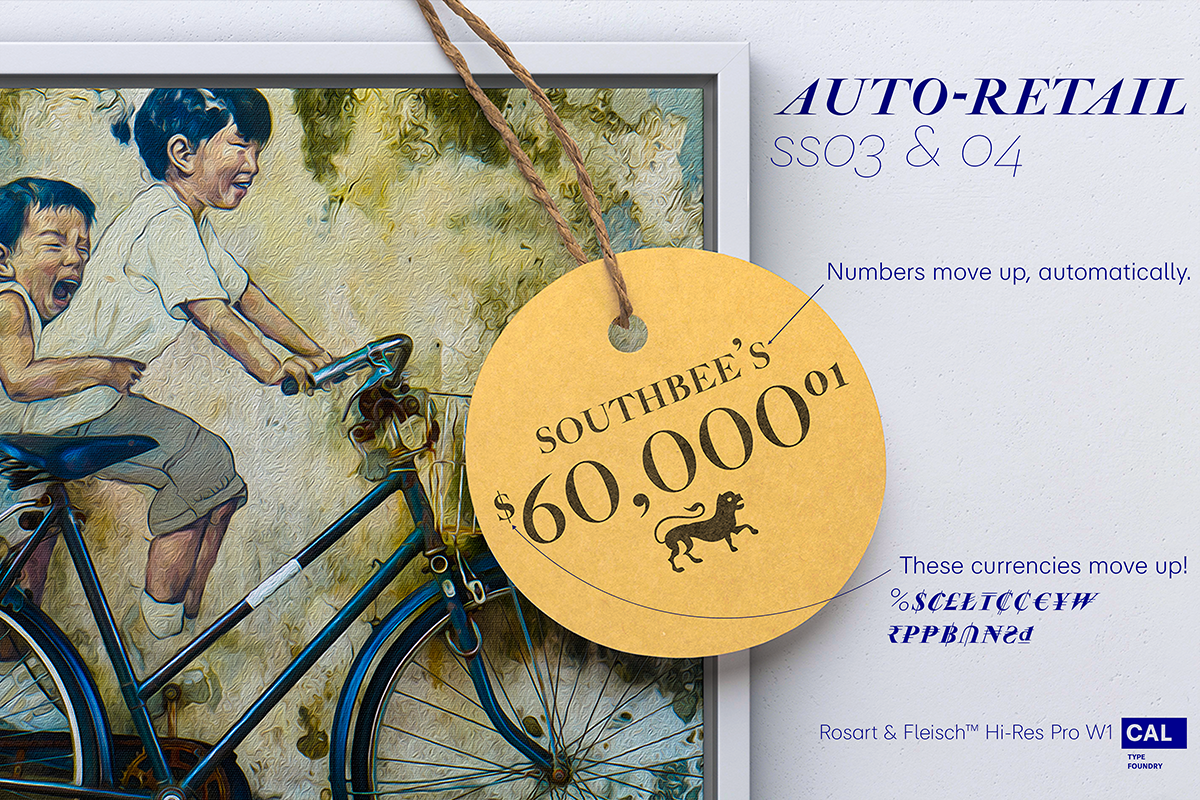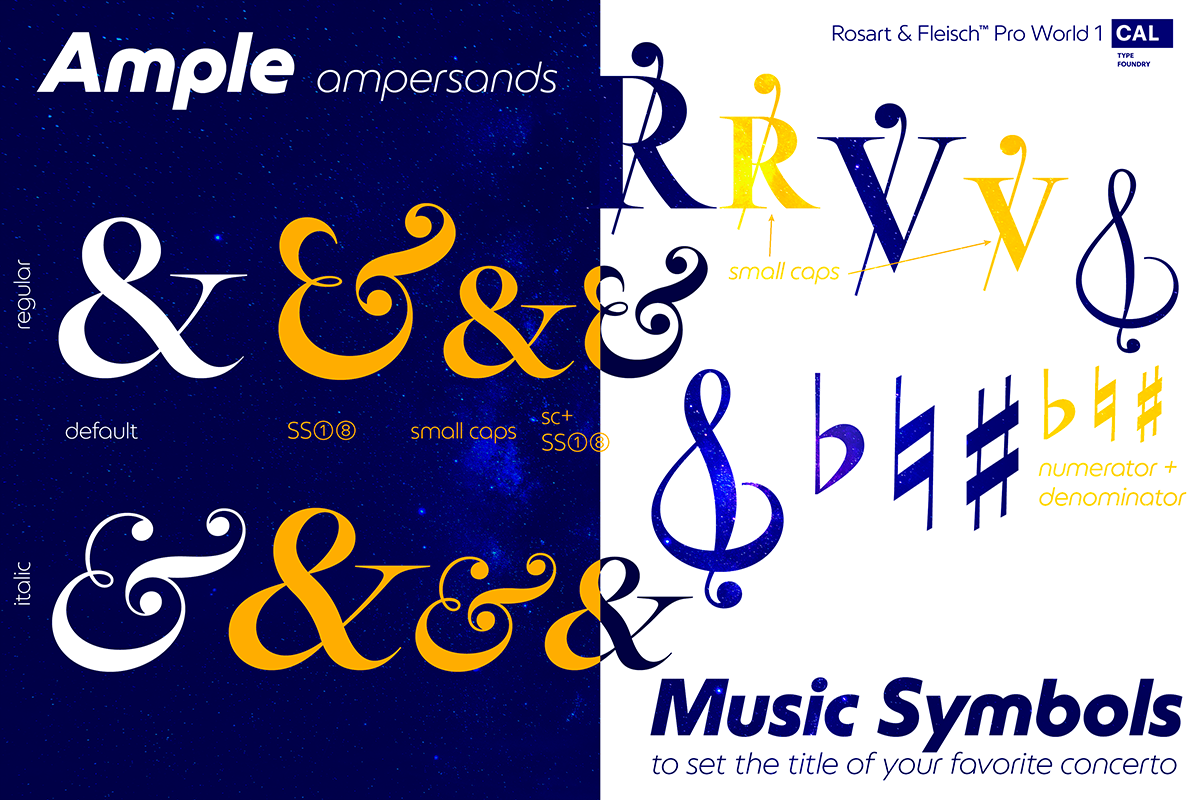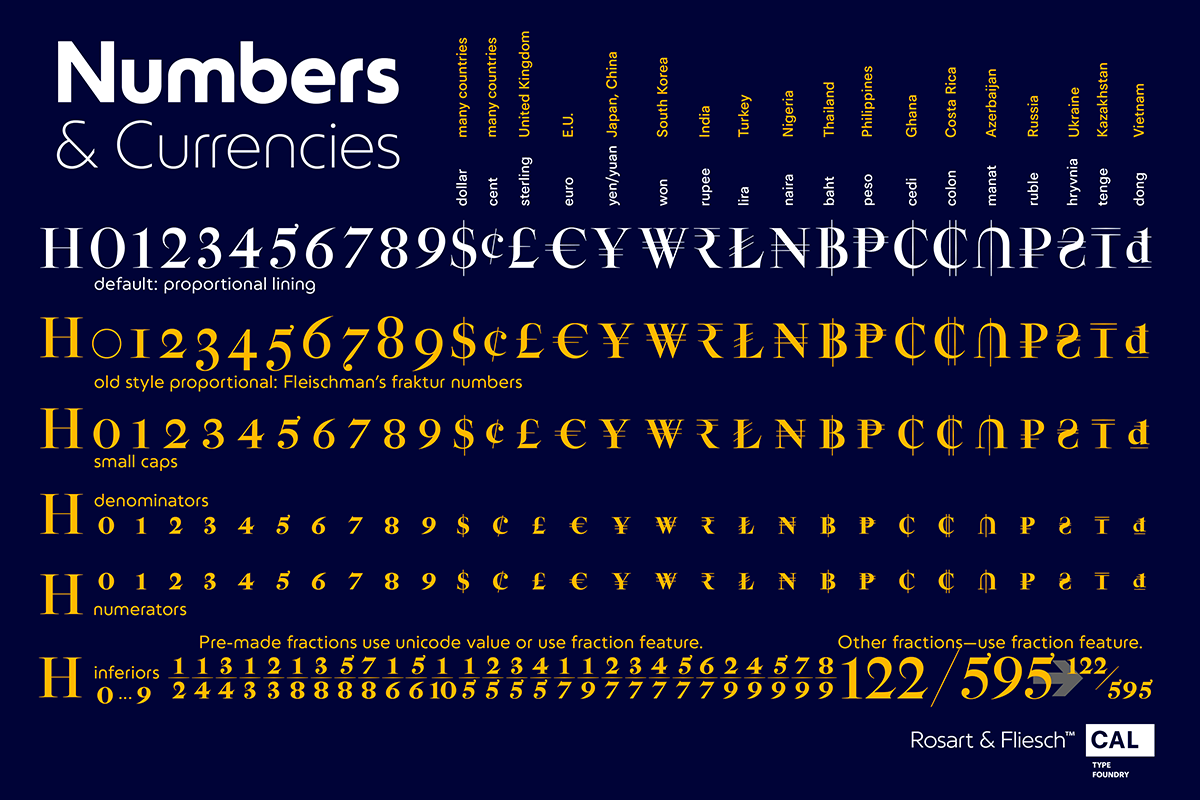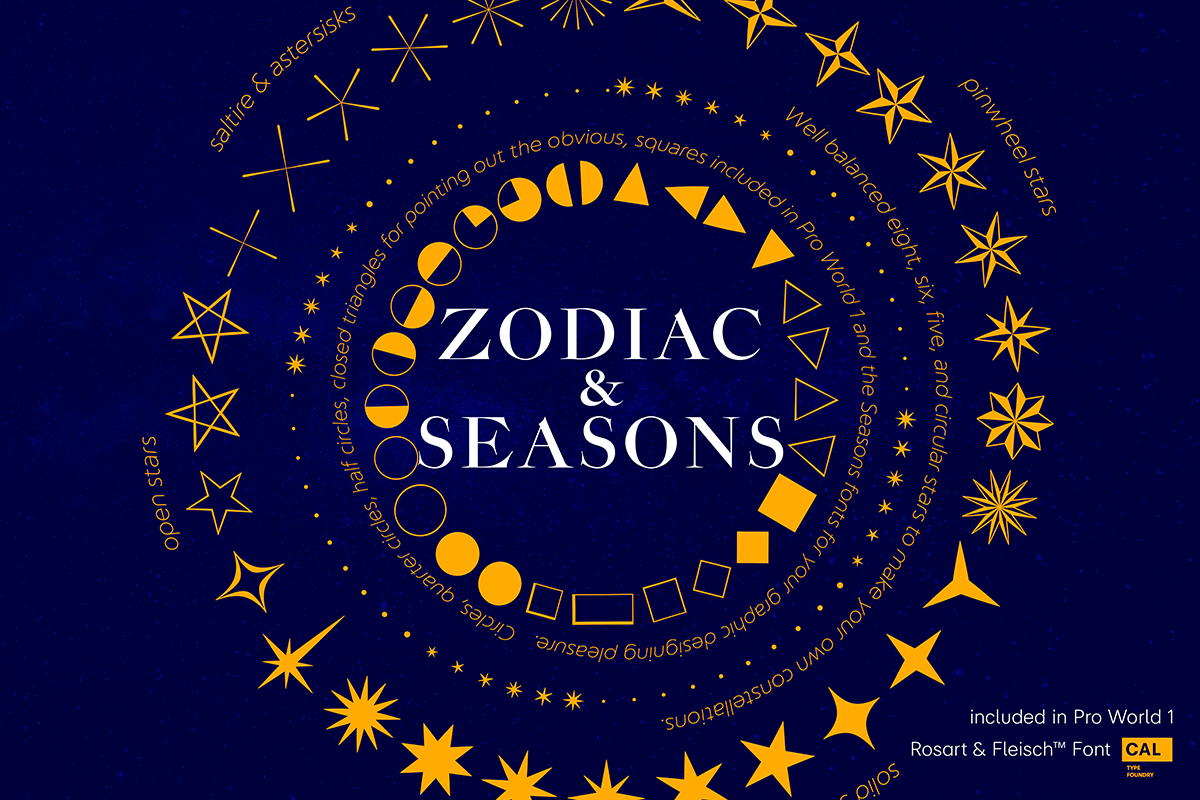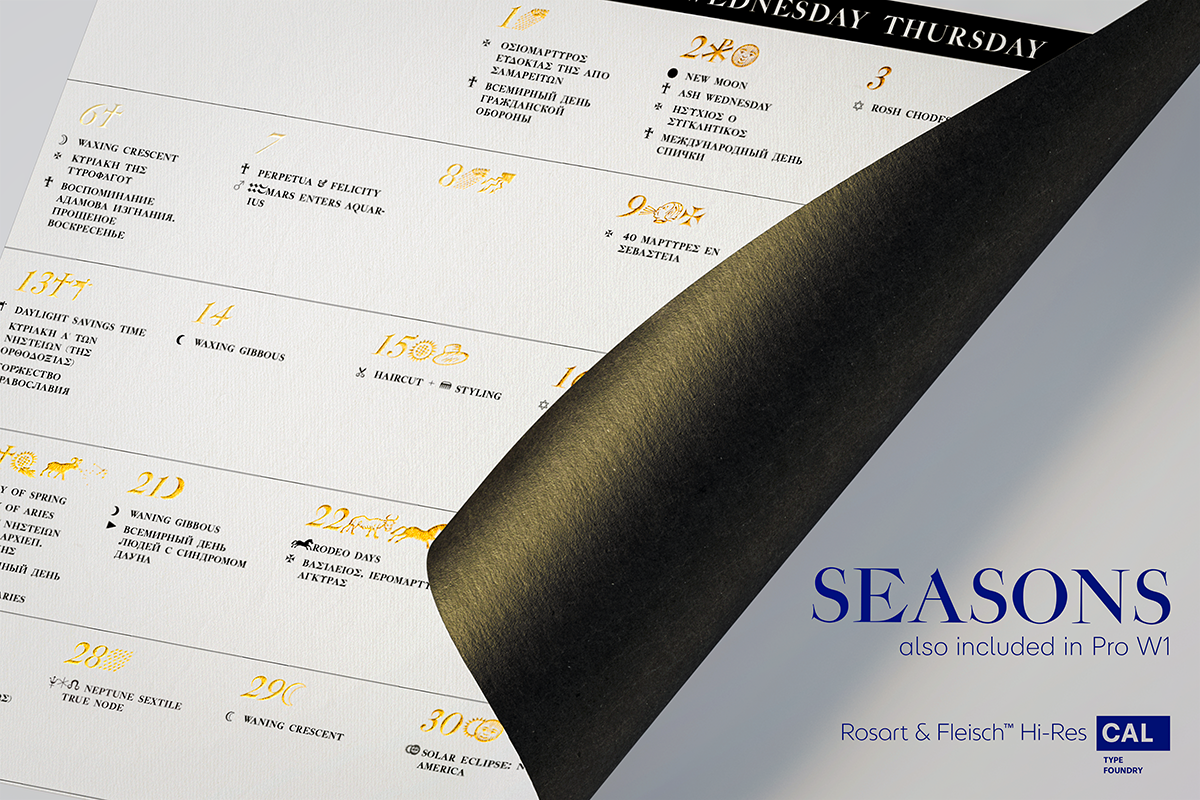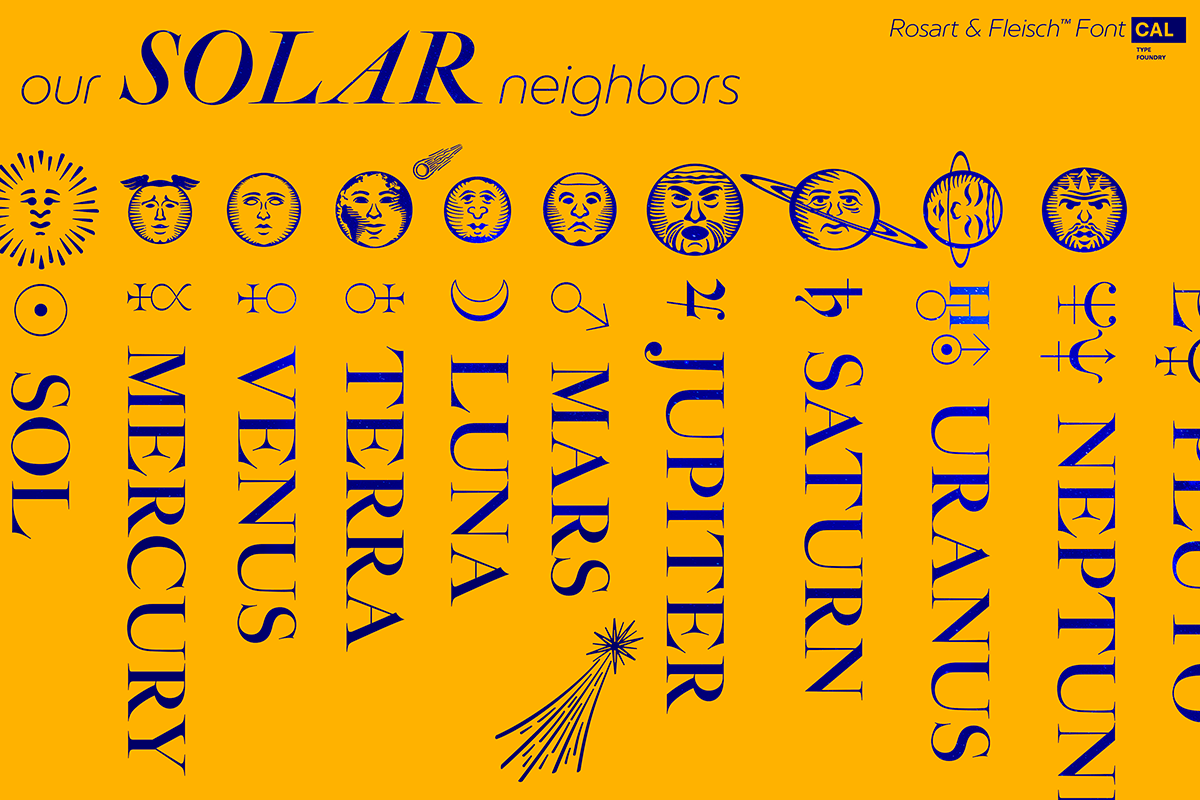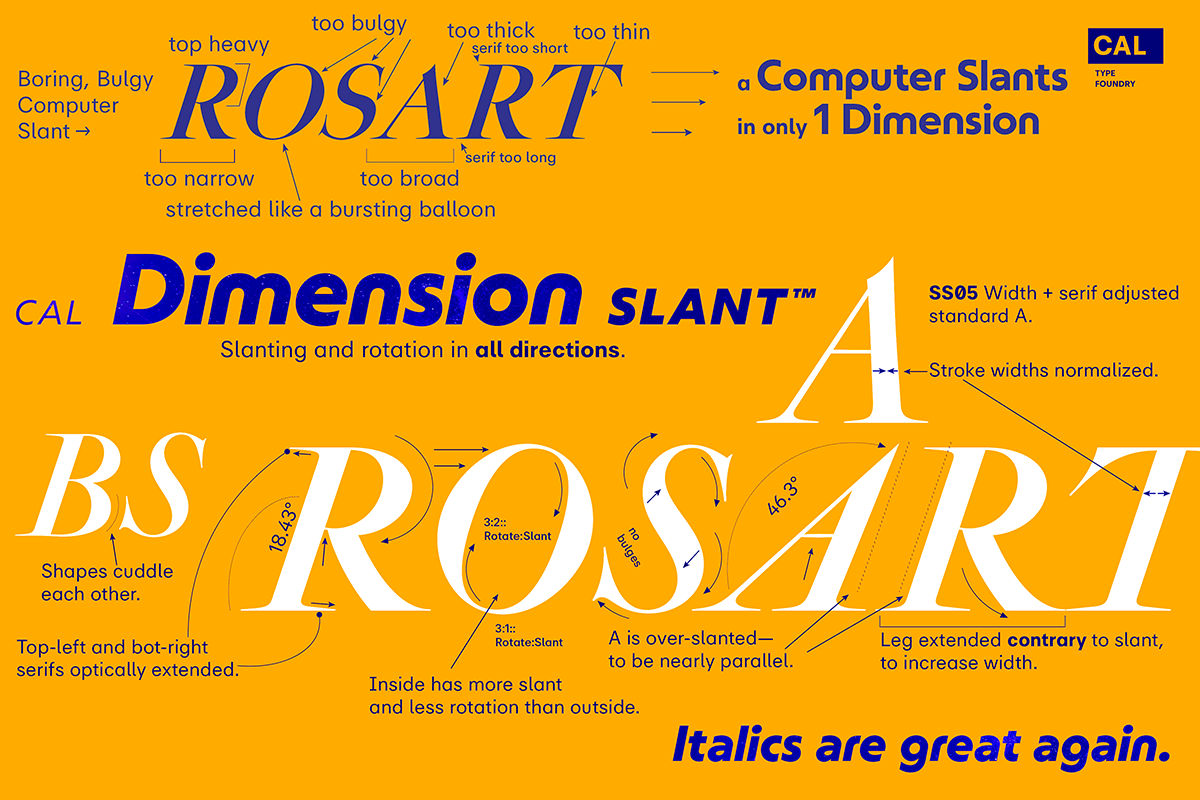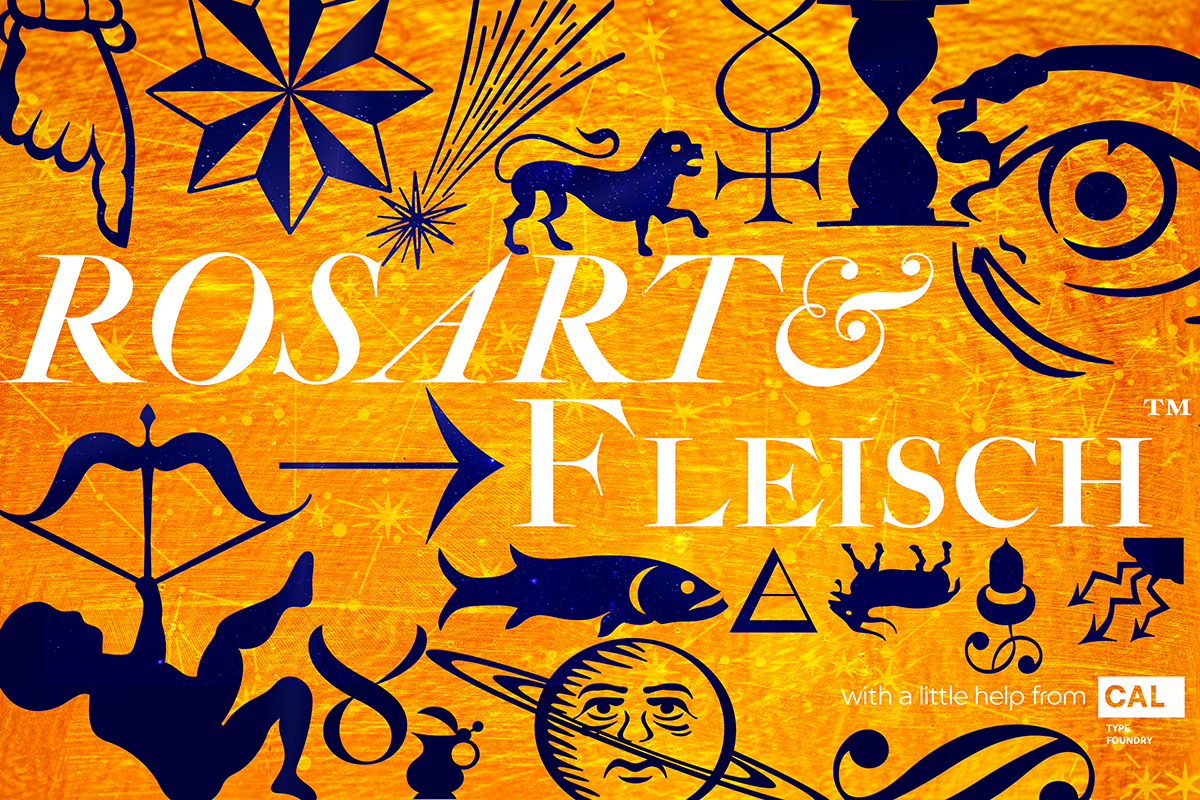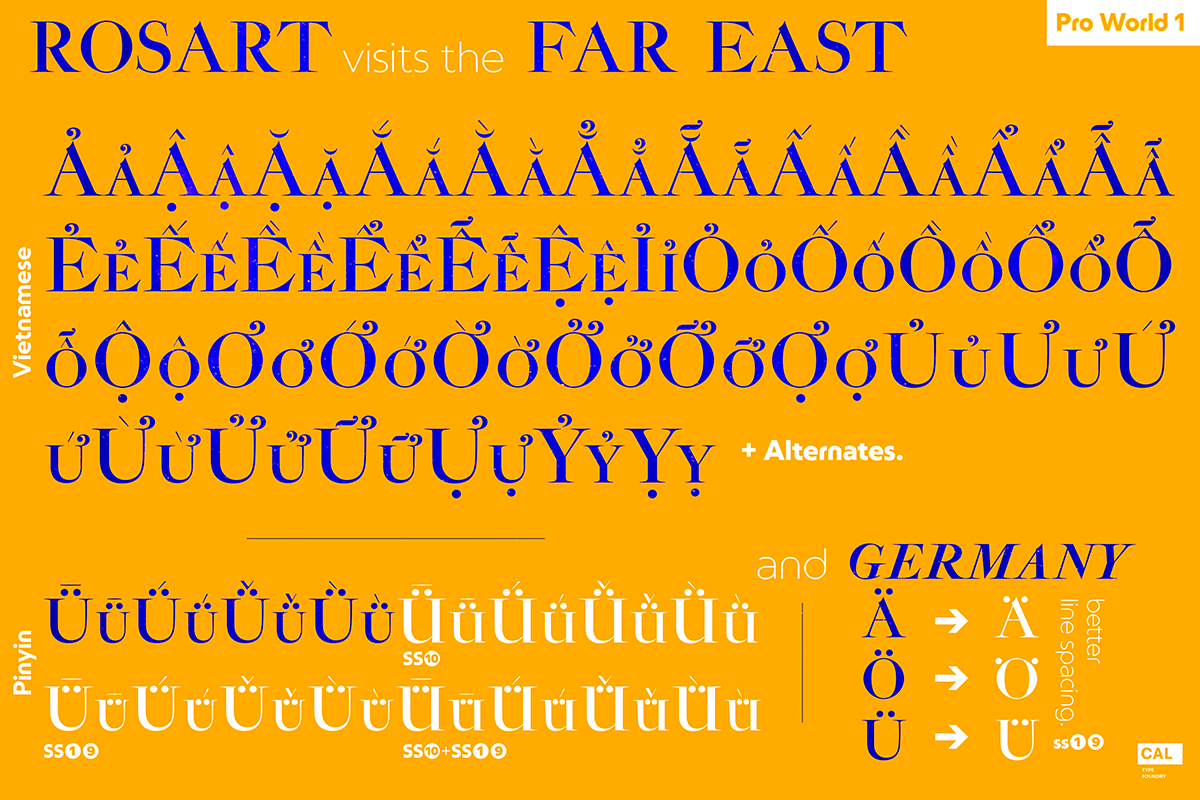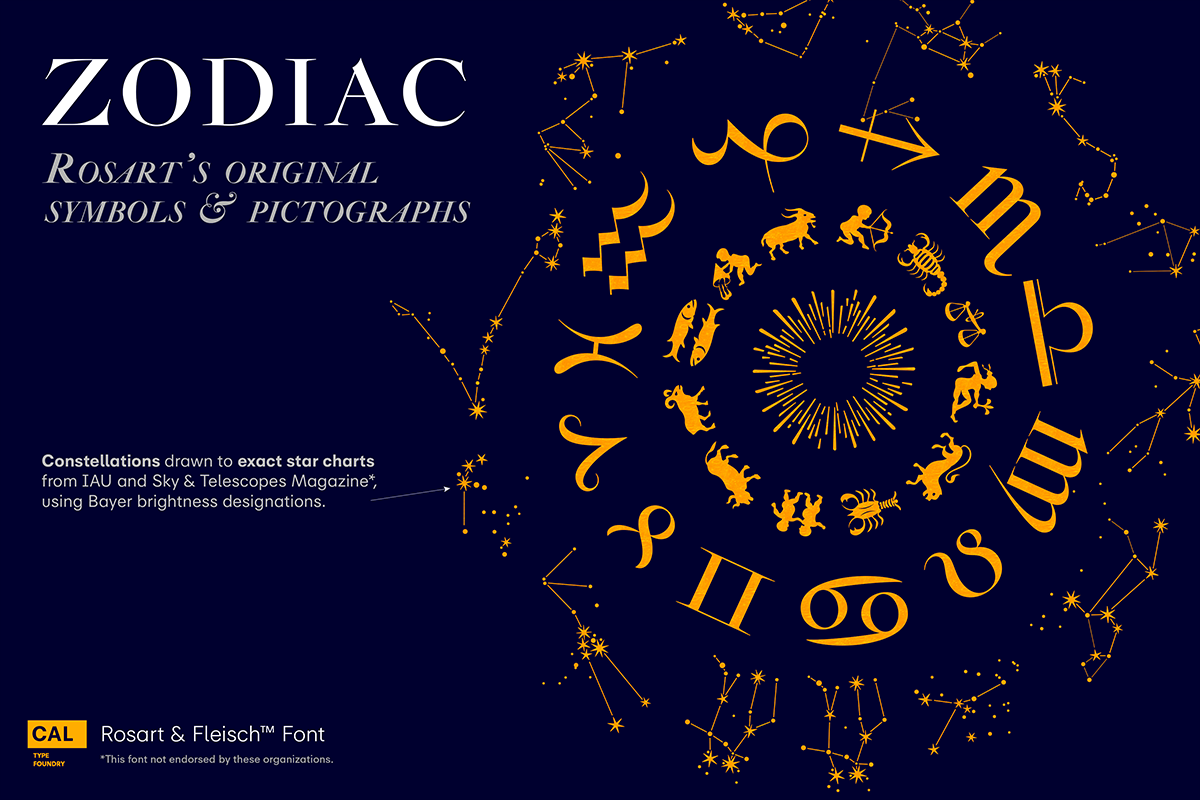
This font is not just historic, but classy, timeless, and in its current form, a modern classic.
The original Titling Caps and icons Jacque François Rosart painstakingly carved, now meticulously digitized to be a true, accurate, and complete representation of the original designs.
A display serif typeface that was used to print high class works, including Leopold Mozart's classic book on violin technique and important printings of the Bible.
Zodiac and Constellations - The Stars Have Aligned into a Great Font So what's your sign? Whatever it is, R&F has it, and in so many ways! Pictograph, symbol, constellation and picto-constellation are all included. Constellations are useable even in scientific and education settings: based on current star charts and matched to Bayer designations, these stars shine both in design and accuracy!
- Includes Rosart's original moon and sun faces.
- Faces for the planets to match those for the sun and moon.
- Rosart's symbols for the planets.
- Astrology symbols including, Rosart’s pictographs for the twelve signs.
- Constellations of the Zodiac from precise star charts.
- Precise small star shapes, so you can design other constellations.
- Pinwheel, saltires, asterisks, solid stars, and even the Christmas star.
- Dave Lawrence, "Each symbol was carefully designed to match the main font."
Alchemy Symbols - Turns A Design into Gold From labeling your cupboard of magical ingredients to getting one step closer to the golden goose, these rare alchemical symbols are a treasure trove of possibilities. Including:
- classic symbols for elements
- combinations
- medicinals
- chemistry
- mathematical symbols
- Includes music symbols for titling, as well as Verse and Response symbols.
Seasons - Symbols to Keep Things Organized Throughout the Year
- Classic weather stylings, including old fashioned lightning and an eclipsing moon with the four-o'clock shadow.
- Map Markers
- Religious Symbols
- Phases of the moon.
- Pointing symbols: fingers, arrows, triangles, with circles
Matching Italics CAL's Dimension Slant™ Instead of sloping all the pictures and drawings to an even slant, a multidimensional approach was used. And each symbol was evaluated and crafted individually.
Pro World1 Font The pro world font contains all of these:
- Latin Standard set
- Rosart's original backwards X alternate. Alternate U shape.
- In the italic: swash variants for the J, Q, and Y.
- Proportional Lining (default), proportional old style, small caps figures.
- CAL Dimension Slant, for dynamic italics
- Includes Rosart's original moon and sun faces, along with additional faces for each planet.
- Rosart’s symbols for the planets and pictographs for the twelve signs of the zodiac.
- Constellations of the Zodiac along with small star shapes.
- Large stars, pinwheel, saltires, asterisks
- Symbols for chemistry
- Medicine
- Music symbols
- Mathematical symbols
- Pointing symbols like the finger, acorn, arrow and triangle.
- Geometrical shapes.
Plus these more:
- Latin Pro character set for central European languages and Turkish.
- Rare kerns for Polish, Czech, Slovakian and others.
- Ligatures needed for some central European orthographies.
- Lowered German Umlauts for better line spacing.
- Cyrillic uppercase and small caps for eastern Europe, southern Europe, and Russia, with kerning.
- Rosart’s original Greek uppercase and small caps, but also tonos for monotonic Greek.
- Vietnamese, which has been kerned.
- Pinyin, including a special form of the Ü so that titles can be set closer.
- Numbers: A set of stacking (nut) fractions, along with very elegant automatic fractions
- A large set of currency symbols in lining, old style, small caps, denominator and numerator sizes.
- Our first Retail Pricing Feature: (ss03 + ss04) Just turn on the feature and type $1.99 and Rosart will do the rest.
- Ampersand alternates.
- Numerator sized musical sharp and flat symbols.
Dave Lawrence, “From the moment I saw these letters I knew I had to make this typeface. What I didn’t know was that I would end up drawing most of Rosart’s special symbols... But it was too hard to resist."